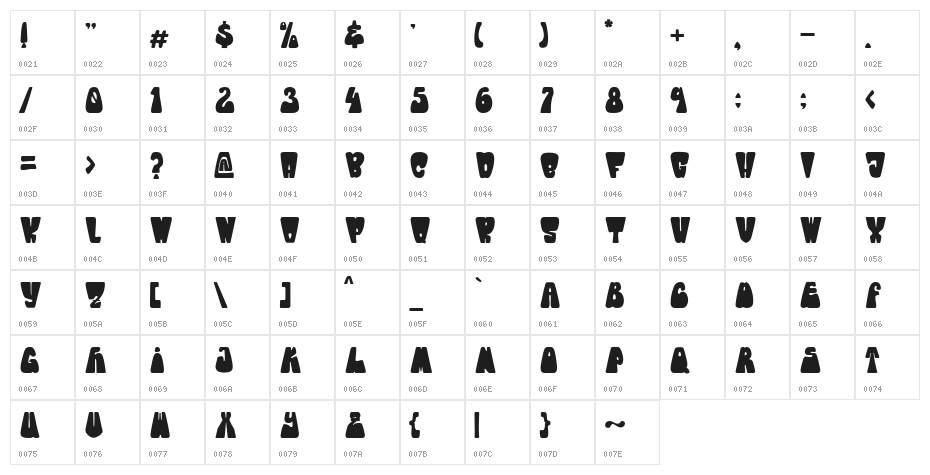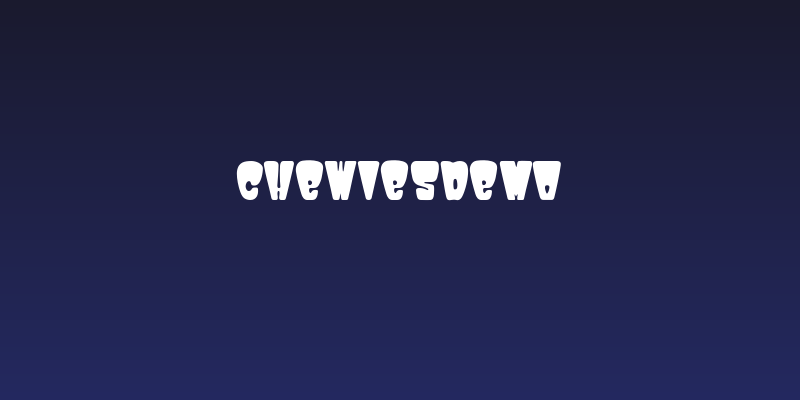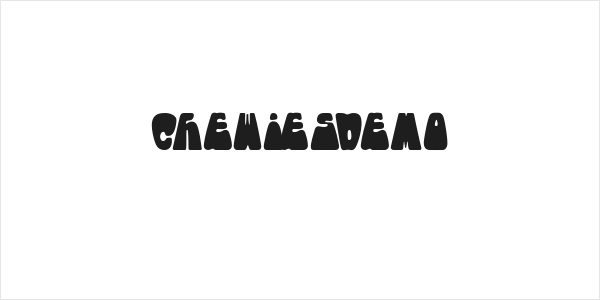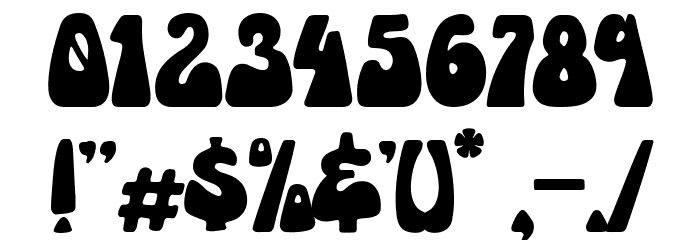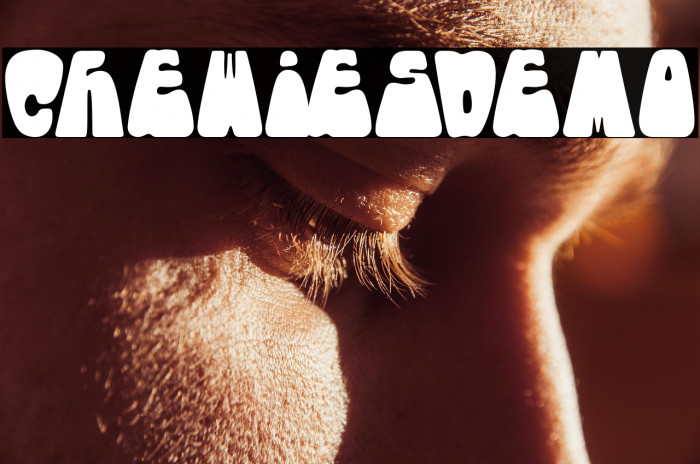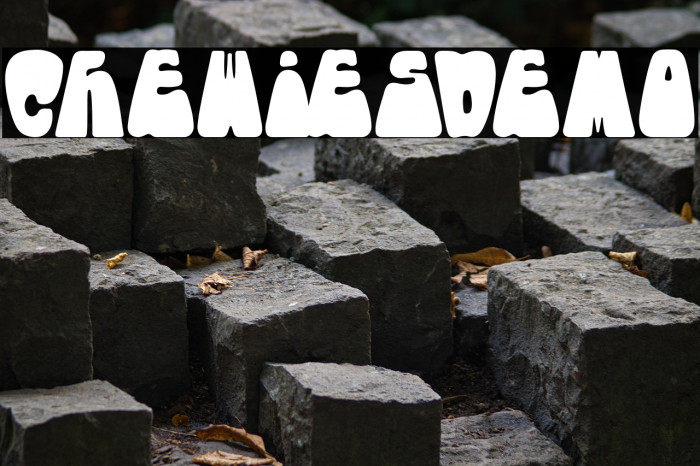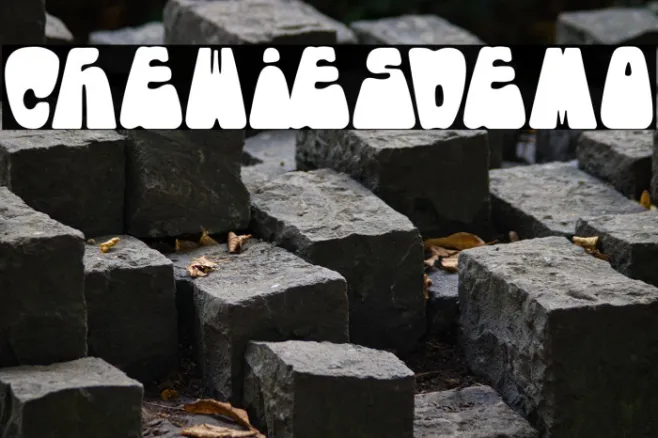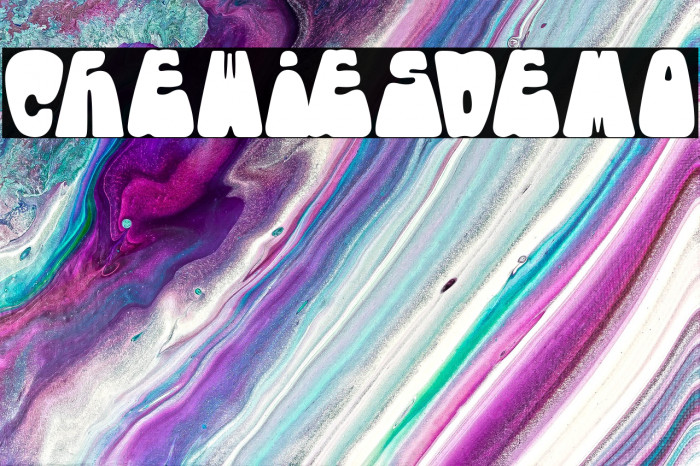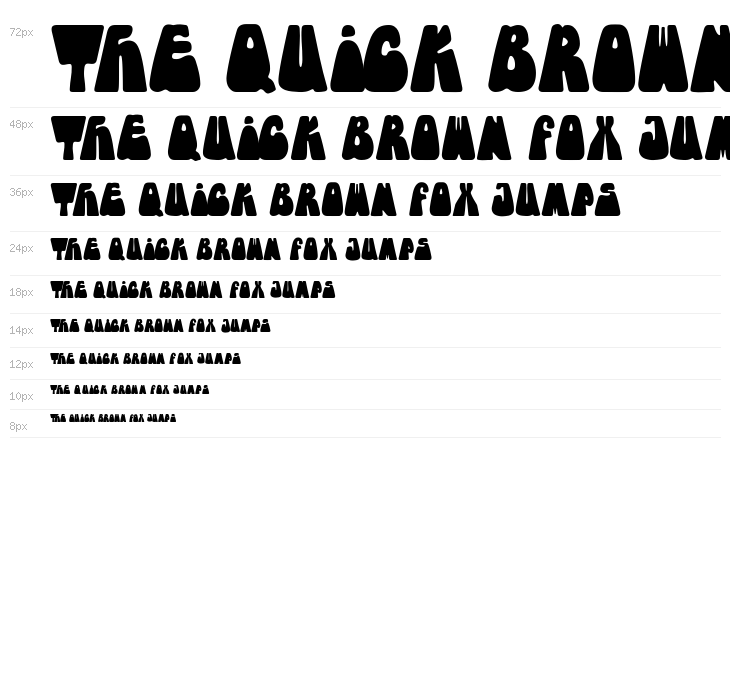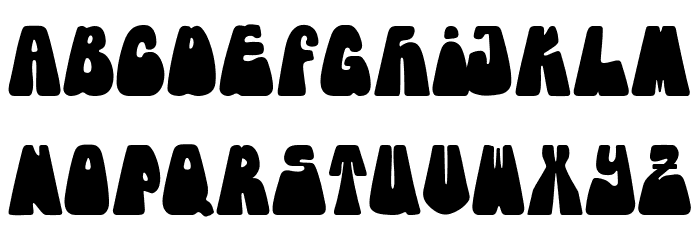
ChewiesDemo Font
ChewiesDemo Description
This font features a bold and playful design with thick, rounded shapes that give it a whimsical and cartoonish appearance. The characters are heavily stylized, with exaggerated curves and a chunky form that makes them stand out. The uppercase and lowercase letters maintain a consistent style, with a slightly condensed width that adds to the font's unique charm. The numbers and special characters follow the same playful aesthetic, ensuring a cohesive look across all text elements. This font's distinct personality makes it ideal for projects that require a fun and engaging visual impact.
| Overall Style | Playful, Cartoonish |
| Proposed Projects | Ideal for children's books, playful branding, posters, and party invitations. |